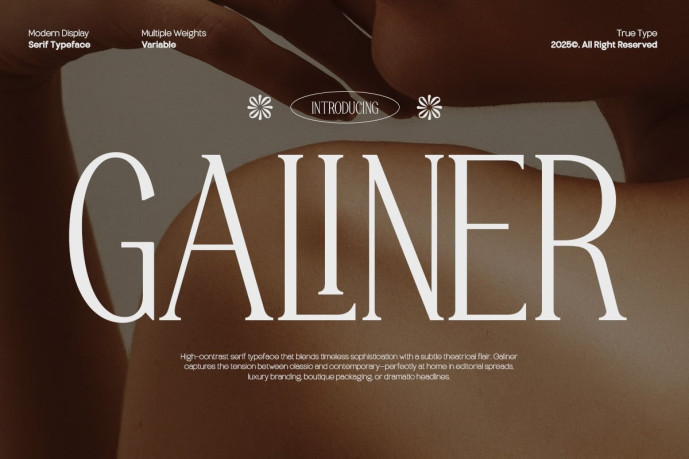
Galiner Elegant Serif Font
Galiner Elegant Serif Font that blends timeless elegance with subtle contemporary details. Designed to offer both sophistication and readability, TBJ Galiner features support for small caps and clean, well-structured letterforms — making it a versatile choice for refined and professional design work.
With its distinctive serifs, balanced contrast, and graceful curves, TBJ Galiner performs beautifully in both large display sizes and extended text settings. Whether you’re crafting editorials, branding systems, or packaging, this typeface brings a sense of intelligence and poise to your typography.
TBJ Galiner communicates with clarity and charm — a typeface that feels polished yet personable. It’s a flexible tool for designers who seek strong structure without sacrificing personality.